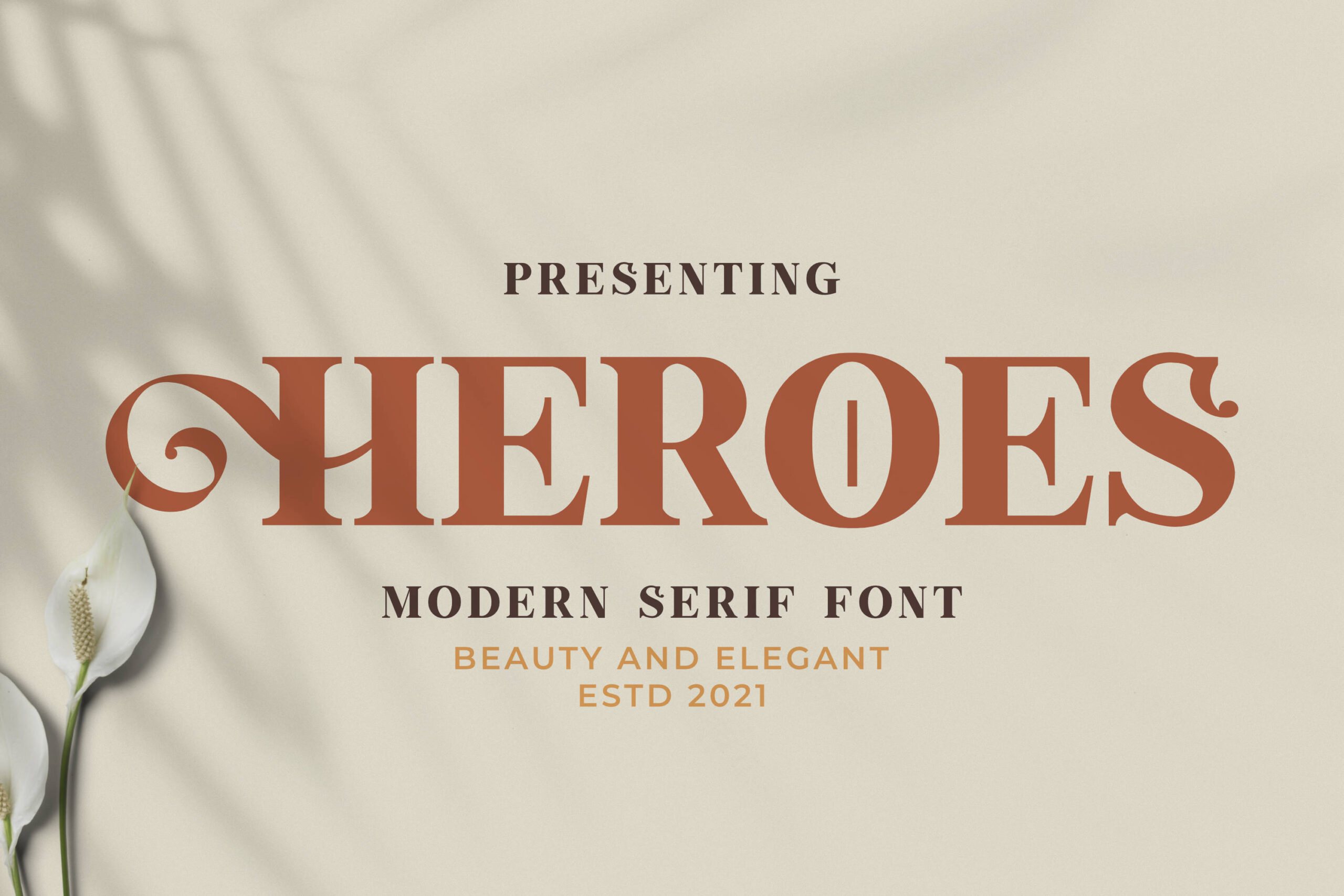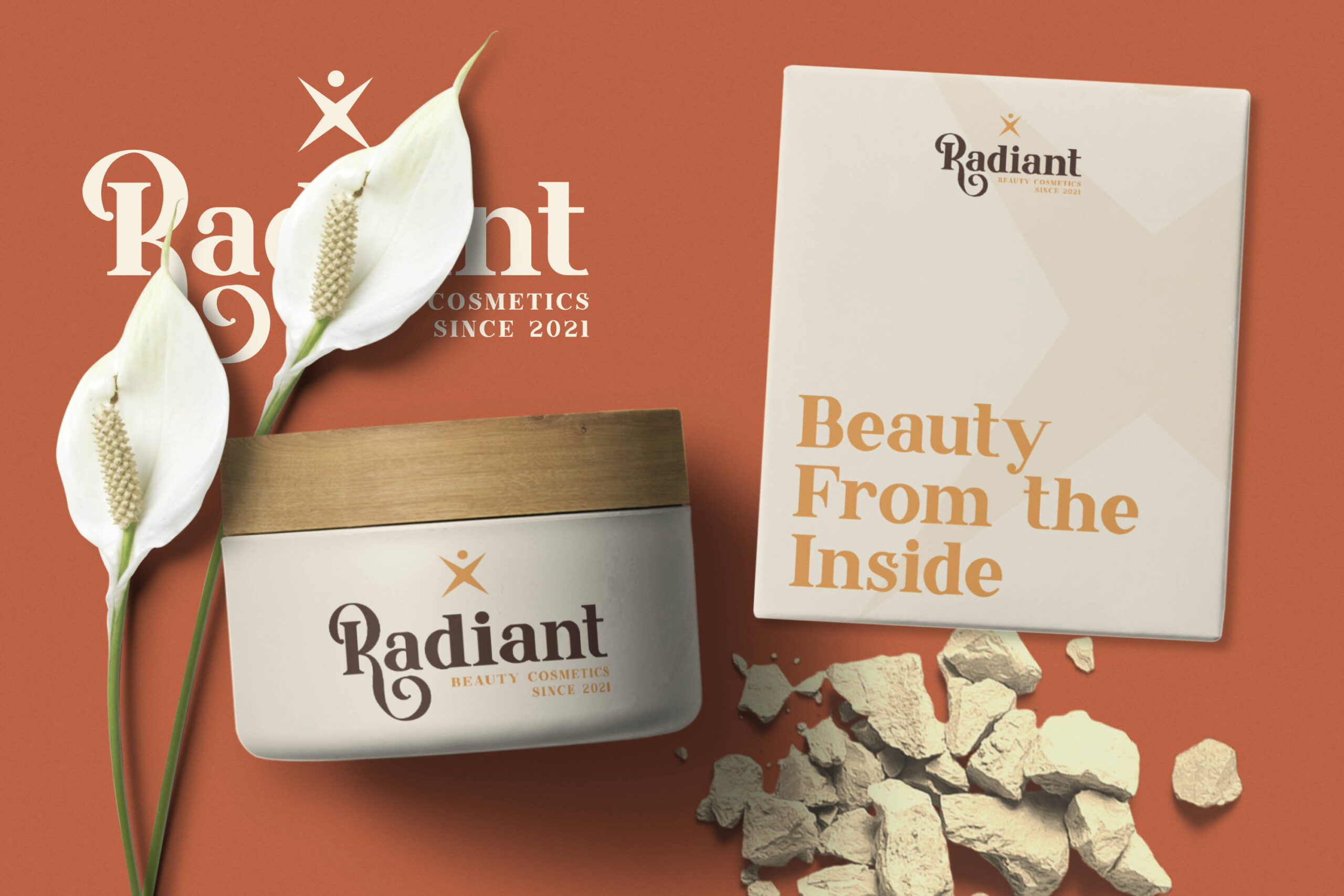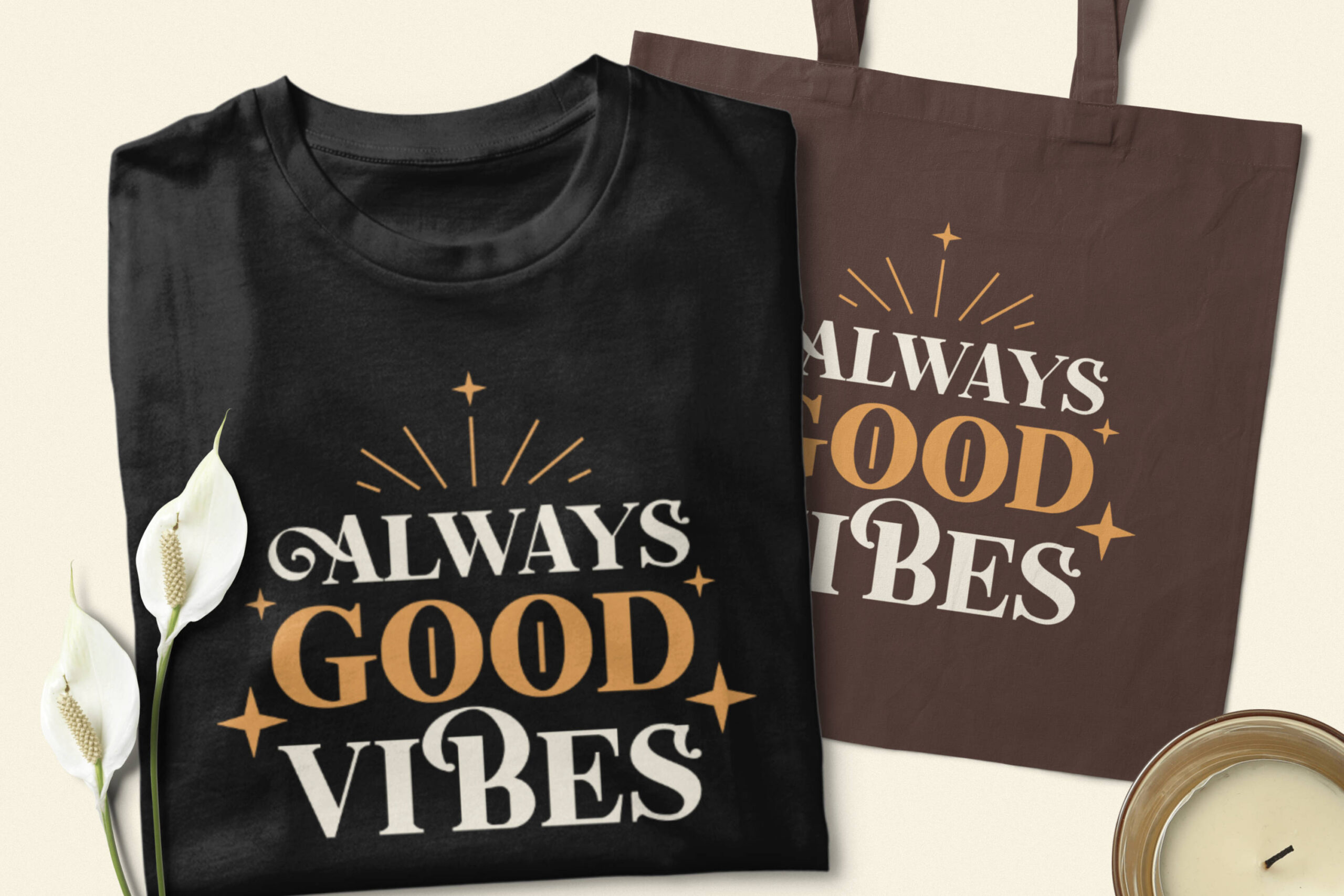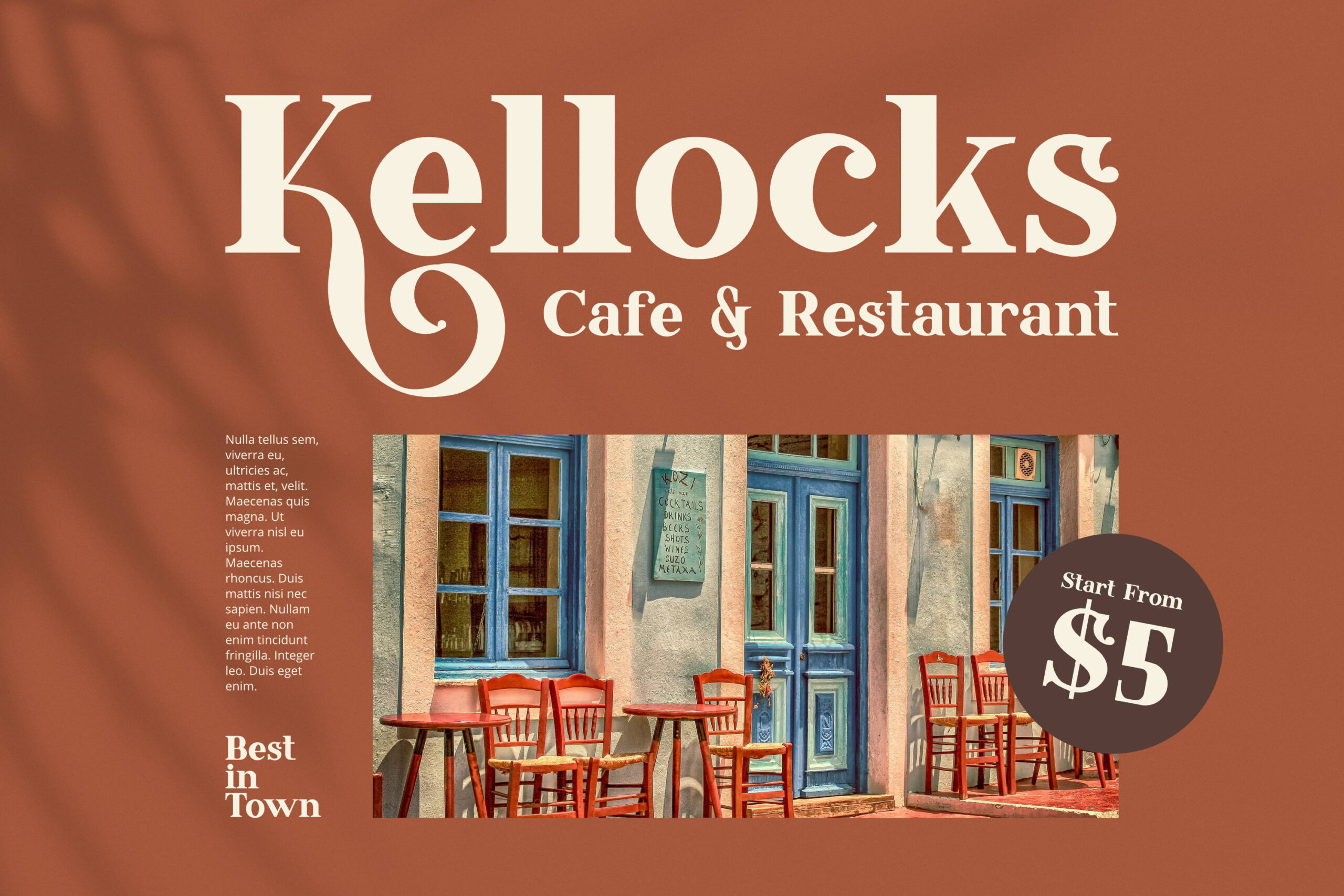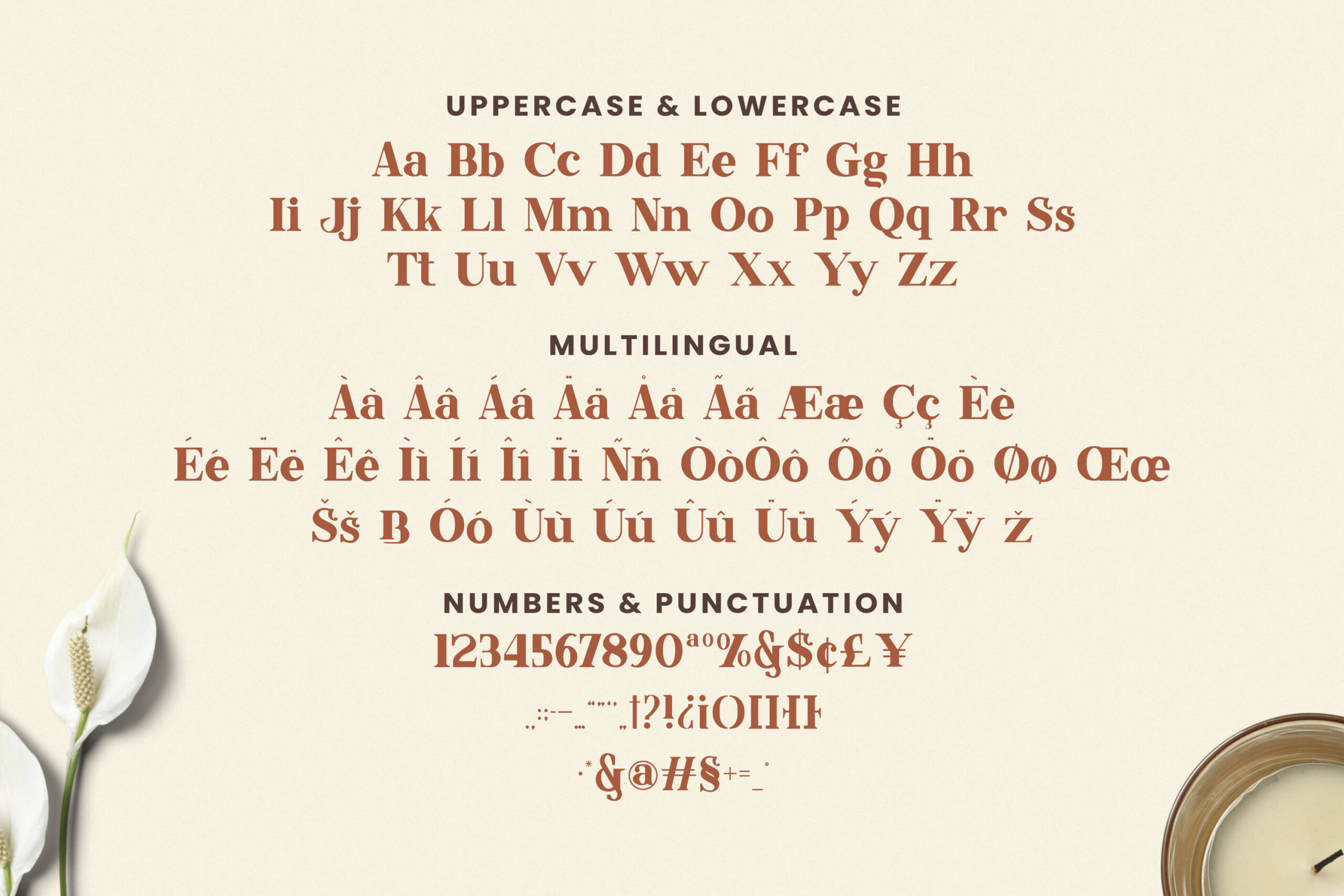
Heroes is a bold and elegant modern serif font, designed with stylish swashes and sharp letterforms that bring a touch of sophistication to any project. Its combination of classic elegance and artistic flair makes it perfect for premium branding, editorial headlines, and stylish product packaging. Each character is carefully crafted to maintain readability while delivering a high-end visual appeal.
This font includes uppercase and lowercase letters, multilingual support, and a complete set of punctuation and symbols. Heroes is ideal for cosmetics branding, lifestyle magazines, fashion logos, cafe signage, and more. Whether for digital or print media, Heroes ensures every design makes a bold and graceful statement.
Heroes